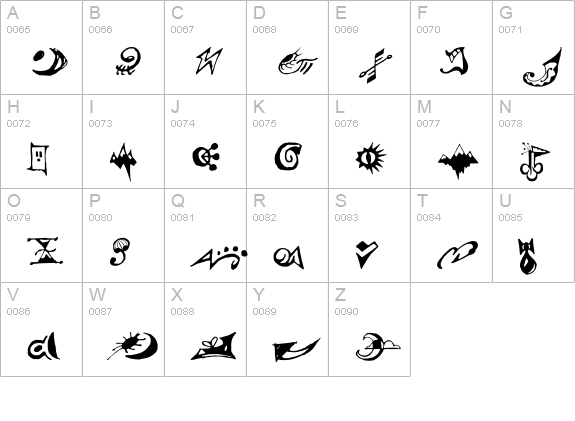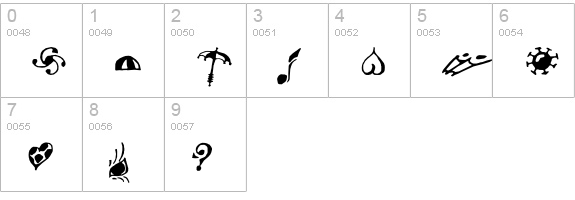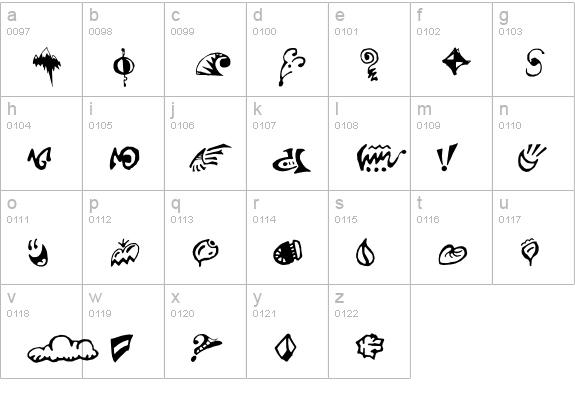
SuRealDingbats-VolumeOne Font Details
SuRealDingbats-VolumeOne font is a delightful collection of whimsical and creative dingbats that are sure to add a touch of fun and personality to your designs. This unique font features a wide variety of playful icons and symbols, perfect for adding a quirky and charming element to any project. What sets SuRealDingbats-VolumeOne font apart is its free-spirited and imaginative design, making it a versatile choice for a wide range of creative applications. Whether you're working on a poster, flyer, greeting card, or any other design project, this font is sure to bring a smile to your audience's face. Best of all, SuRealDingbats-VolumeOne font is freely available to download at FontsMarket.com, making it easily accessible for designers and creatives looking to add a touch of whimsy to their work. So why wait? Download SuRealDingbats-VolumeOne font today and let your creativity soar!